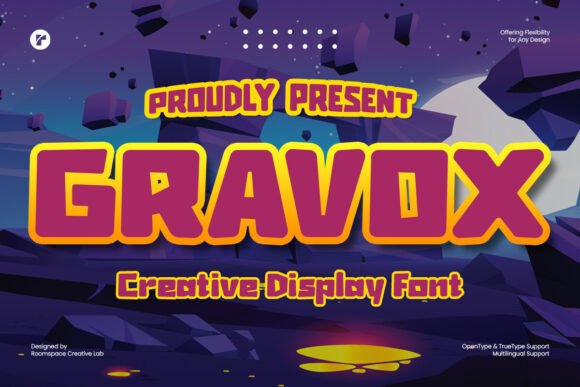
Introducing Gravox Font: Revolutionizing the Future of Gaming Typography
In the ever-evolving world of gaming, typography plays a crucial role in capturing the essence and excitement of a game. A well-designed font can elevate the gaming experience, making it more immersive and engaging for players. This is where Gravox Font comes into play, a bold and dynamic typeface specifically designed for gamers, developers, and creative minds. Inspired by the nostalgia of arcade classics and the sleekness of modern futuristic displays, Gravox is poised to revolutionize the future of gaming typography.
The Birth of Gravox: A Font for the Gaming Community
Gravox Font is the brainchild of designers who understand the unique needs of the gaming industry. They sought to create a typeface that embodies the spirit of gaming: fun, energy, and a touch of futurism. Gravox is the result of meticulous craftsmanship, blending sleek sans-serif styles with versatile variable features. This font is not just about aesthetics; it’s about creating an emotional connection with the gamer.
Design Inspiration: A Blend of Retro and Futurism
Gravox draws inspiration from the golden age of arcade games, incorporating elements that remind us of classic video game titles and posters. At the same time, it infuses modern design principles to give it a fresh, futuristic look. This blend of retro and futurism makes Gravox a versatile font suitable for a wide range of gaming-related projects, from retro-inspired visuals to high-tech branding.
Key Features of Gravox Font
- Sleek Sans-Serif Style: Gravox boasts a clean, modern sans-serif design that gives it a contemporary look, perfect for digital platforms and print materials.
- Versatile Variable Features: The font comes with variable features, allowing designers to customize weight, width, and other attributes to fit their project’s needs.
- Playful yet Sharp Letterforms: Gravox’s letterforms are designed to be playful and fun, yet sharp and legible, making it ideal for titles, headings, and UI design.
Applications of Gravox Font
Gravox is incredibly versatile, making it suitable for a variety of applications within the gaming industry and beyond. Some of its key uses include:
- Game Titles and Posters: Gravox’s bold and dynamic design makes it perfect for game titles, posters, and promotional materials, capturing the attention of potential players.
- UI Design: The font’s readability and sleekness make it an excellent choice for in-game UI elements, such as menus, buttons, and dialogue boxes.
- Branding: For game developers and publishers, Gravox offers a unique opportunity to brand their games and products with a distinctive, recognizable style.
The Future of Gaming Typography with Gravox
As the gaming industry continues to evolve, so does the importance of typography in game design. Gravox Font represents a significant leap forward in gaming typography, offering a design language that is both nostalgic and forward-thinking. Its adaptability and aesthetic appeal make it a valuable tool for designers looking to create engaging, memorable gaming experiences.
Why Choose Gravox for Your Gaming Project?
Choosing Gravox for your gaming project means selecting a font that understands the gaming culture and its visual language. Here are a few reasons why Gravox stands out:
- High-Energy Digital Look: Gravox brings a vibrant, digital look to any project, ensuring it stands out in a crowded market.
- Fun and Readability: The font strikes a perfect balance between fun, playful design and readability, making it suitable for a wide audience.
- Impact: With Gravox, your game’s title, UI, or branding will make an impact, drawing in players and setting your game apart.
Gravox Font is more than just a typeface; it’s a design statement that says fun, energy, and futurism. Whether you’re designing for kids’ games, retro-inspired visuals, or high-tech branding, Gravox delivers the perfect blend of style, versatility, and impact. As we look to the future of gaming typography, Gravox is set to play a pivotal role, empowering designers to create visually stunning and engaging gaming experiences.
Final Thoughts
Gravox Font is a game-changer for anyone involved in game design, development, or marketing. Its unique blend of retro charm and modern design makes it a versatile and impactful choice for a wide range of applications. By choosing Gravox, you’re not just selecting a font; you’re embracing a design philosophy that understands and celebrates the spirit of gaming.